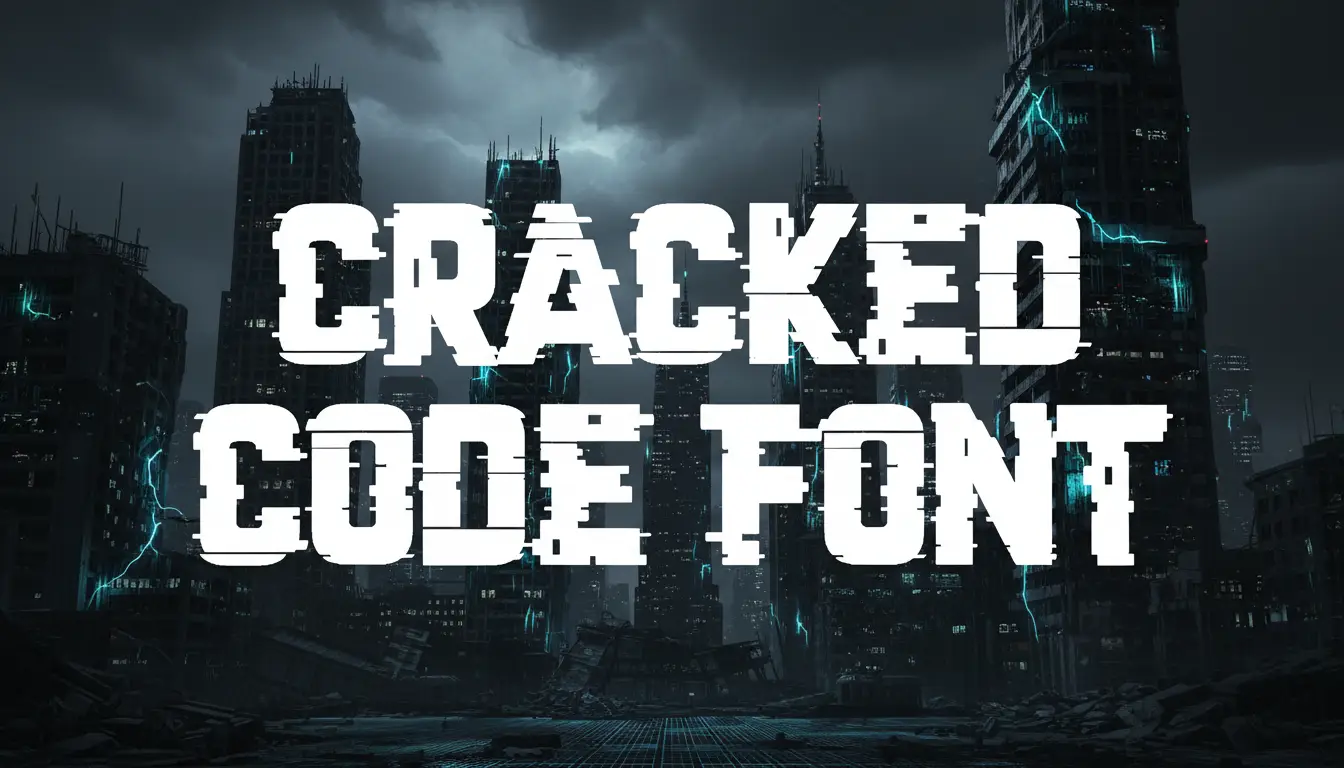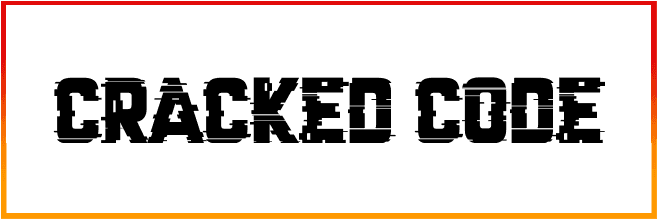
Cracked Code Font
Cracked Code
Cracked Code is a fancy font created by IMAGEX. It's a decorative display font with plenty of personality, made to grab attention. It's a free download, and you can try it with your own text in the preview above first.
- Characters: A–Z, 0–9 and basic punctuation
Cracked Code is an all-caps font: it only has capital letters. Lowercase letters will show up in a different font or as empty boxes, so turn on Caps Lock when you type. All ten numbers are included. Common punctuation such as &, !, ? and @ is included as well. It doesn't include accented letters such as é or ñ, which makes it an English-only font.
Designers usually reach for fonts like Cracked Code when they're making posters, logos and eye-catching headlines. Use it for one standout word or headline and let simpler fonts handle the rest.
No. Cracked Code has no accented letters such as é, ñ or ü, so it's best for English text.